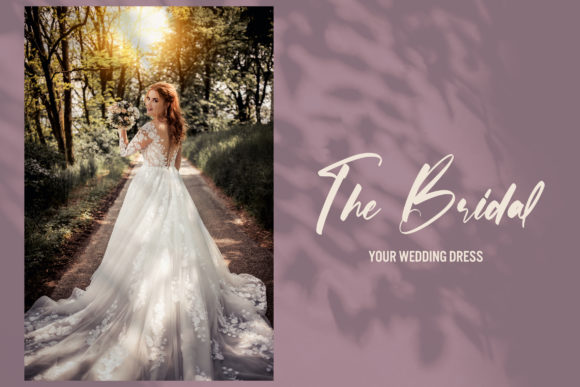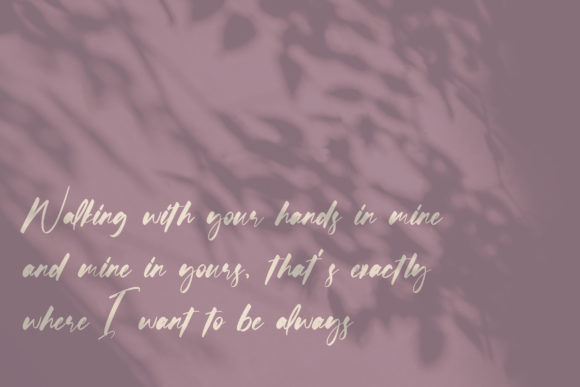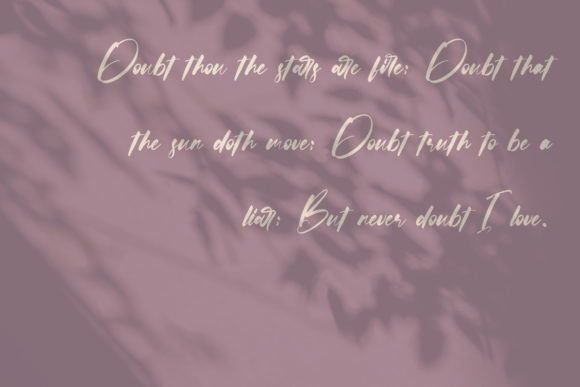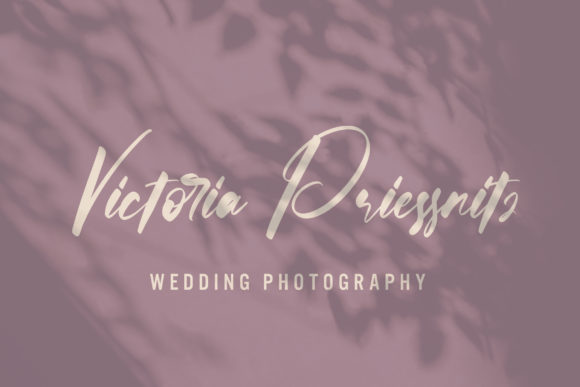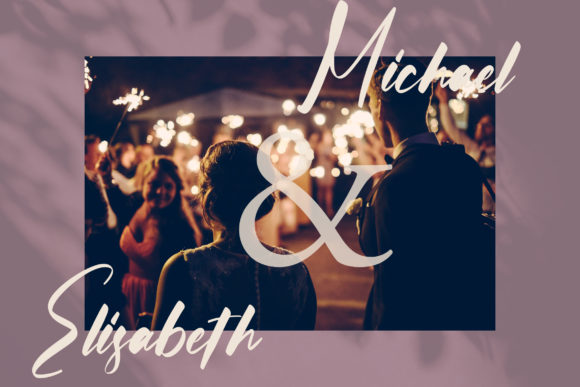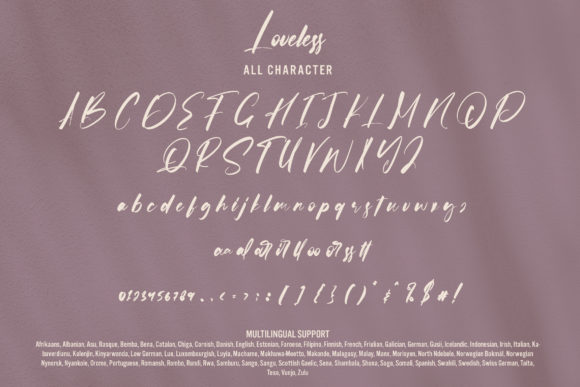
Introduction to Loveless Font
Have you ever stumbled upon the perfect design element that elevates your creative project from ordinary to extraordinary? It’s that moment when all the pieces fall into place, and your vision becomes a stunning reality. For designers, finding the right font can be a game-changer. It’s what sets a professional apart from an amateur and gives a project that extra oomph.
Enter the Loveless Font, a beautiful light handwritten font that exudes luxury and sophistication. With its unique feel and stunning impact, this font is the perfect addition to any design project. Whether you’re working on a high-end branding campaign or a simple social media graphic, the Loveless Font is sure to add a touch of elegance and refinement.
As a valuable design resource, the Loveless Font offers a range of benefits, from its high-quality design to its ease of use. With PUA encoding, accessing all the amazing glyphs and ligatures is a breeze. Plus, with a transparent background, you can easily integrate it into your design without any distractions. And the best part? It’s available for free download, making it an absolute must-have for any designer looking to take their projects to the next level.
Key Features of Loveless Font
- High-quality design resource for creative projects: Loveless Font is a well-crafted font designed to elevate any design project.
- Transparent background: The font has a transparent background, allowing for seamless integration with any design element.
- High-resolution design: The font is available in high resolution, making it perfect for large-scale designs and print materials.
- Unique characteristics: Loveless Font features a unique blend of modern and minimalist design elements, making it an excellent choice for designers looking for something different.
Honest Review: Loveless Font
As a designer, I’m always on the lookout for high-quality design resources that can elevate my creative projects. The Loveless Font caught my attention, and I decided to give it a try.
What works well: ✨ The font has a unique, modern aesthetic that’s perfect for a wide range of creative projects. The transparent background makes it easy to overlay on images or use as a standalone element. The free download is also a major plus – it’s always great to have access to high-quality resources without breaking the bank.
- Unique, modern design aesthetic
- Transparent background for easy overlay
Limitations: ⚠️ While the Loveless Font is a great addition to any design arsenal, it may not be suitable for all projects. The font’s modern style can be quite bold, so it’s best used for projects that require a strong, attention-grabbing element. Additionally, the font’s design may not be suitable for projects that require a more traditional or classic look.
Overall impression: I’m impressed with the Loveless Font’s unique design and versatility. It’s a great resource to have in your toolkit, and I can see it being used in a variety of creative projects. While it may not be suitable for all projects, it’s definitely worth considering for those that require a bold, modern aesthetic.
The Loveless Font is a high-quality, versatile font perfect for any creative project. This design resource boasts a transparent background, making it easy to use in various design applications.
Tips for Getting the Most Out of Loveless Font
For optimal results, use the Loveless Font in combination with other high-quality design elements. Experiment with different font sizes, colors, and styles to create a unique and eye-catching design.
The Loveless Font is ideal for various design projects, including brochures, flyers, business cards, and social media graphics. Its versatility and high-quality design make it a popular choice among designers.
Does the Loveless Font have a transparent background?
Yes, the Loveless Font features a transparent background, making it easy to layer over other design elements without any unwanted background noise. This is particularly useful for designers working on creative projects that require a high level of design precision and attention to detail.